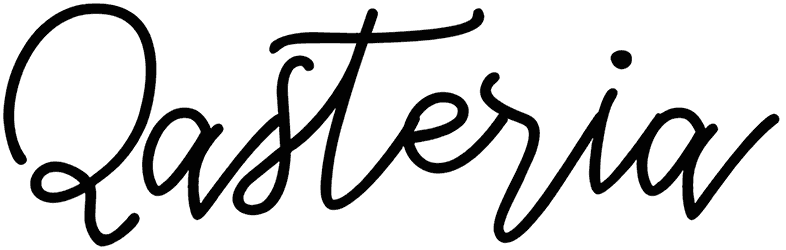
Qasteria Font
We’d like to introduce you to Qasteria, a floating handwritten font. A striking look, such as Qasteria, may pique the interest of viewers! It features a pictographic style with linked design elements that let you make more creative components. It comes in handy for watermarks, invitations, and signs. Now is your chance to discover how this script font catches the audience’s attention.